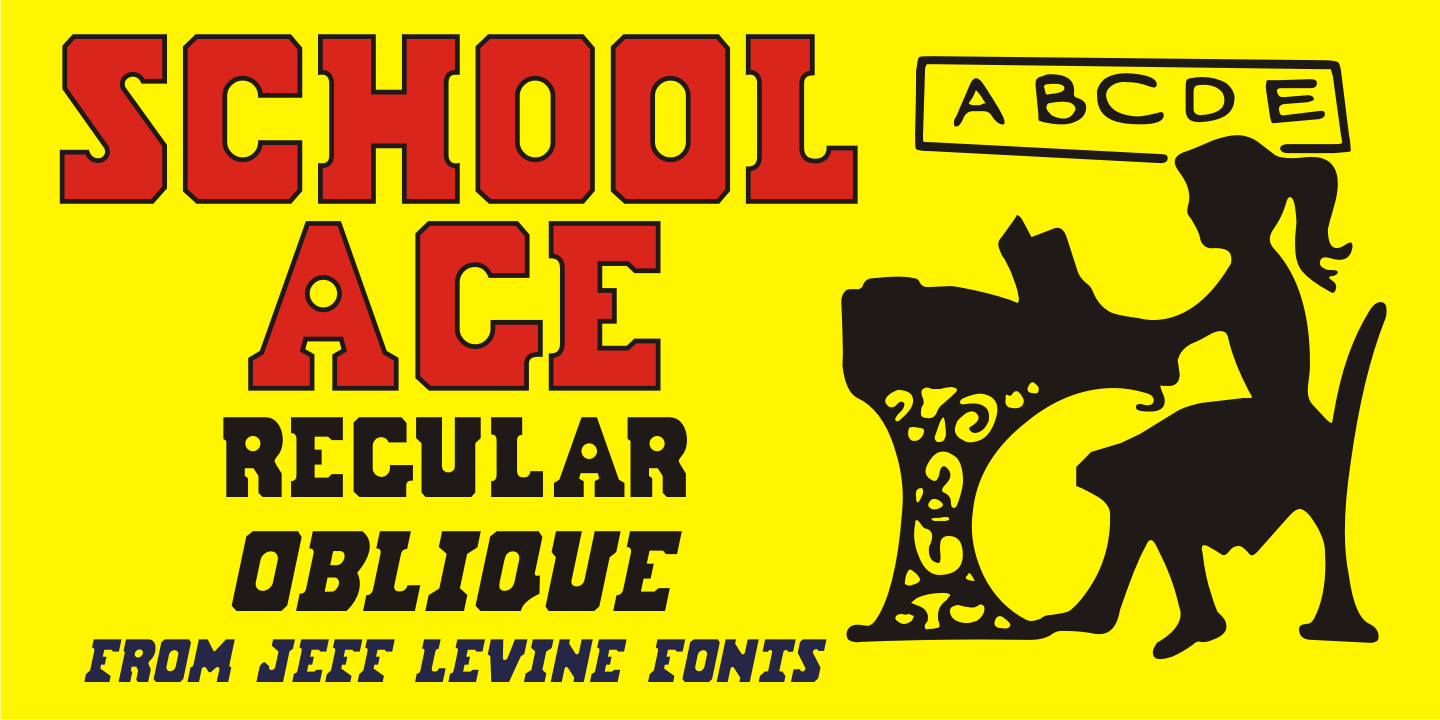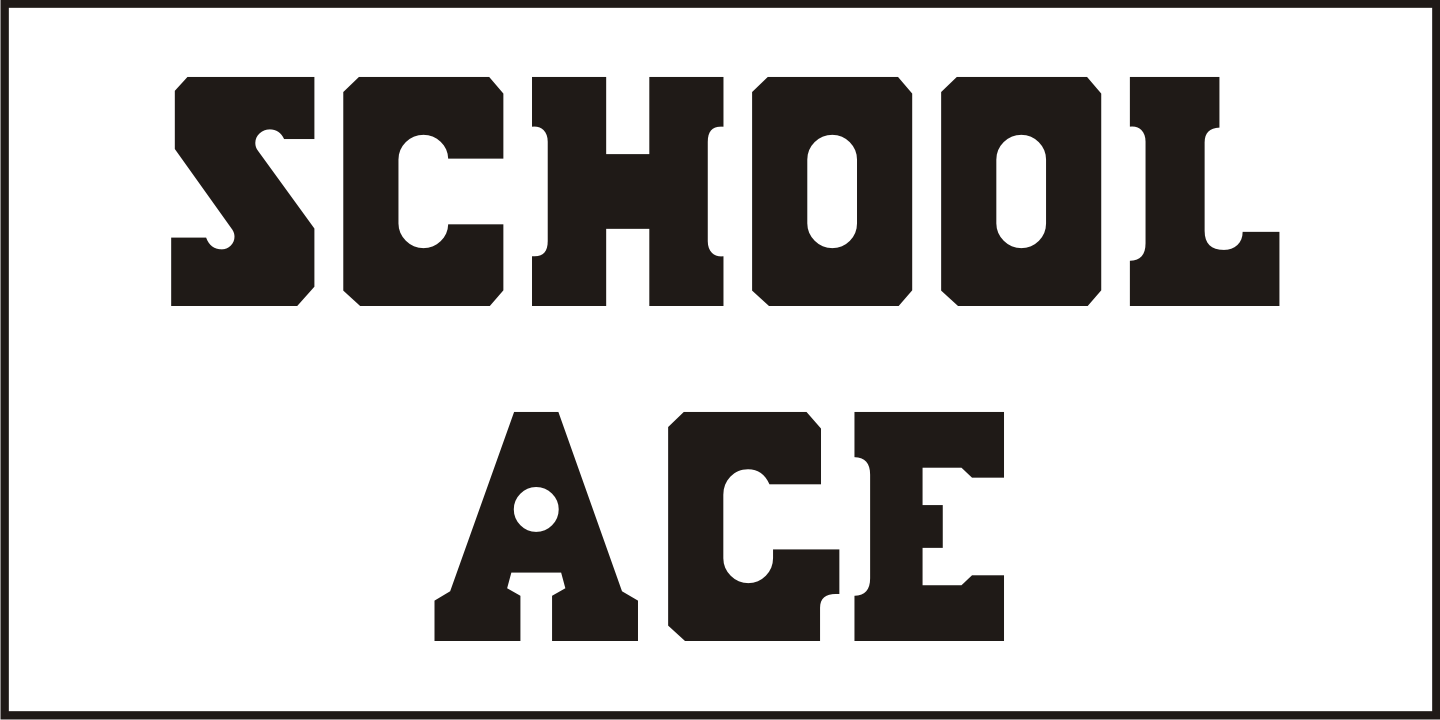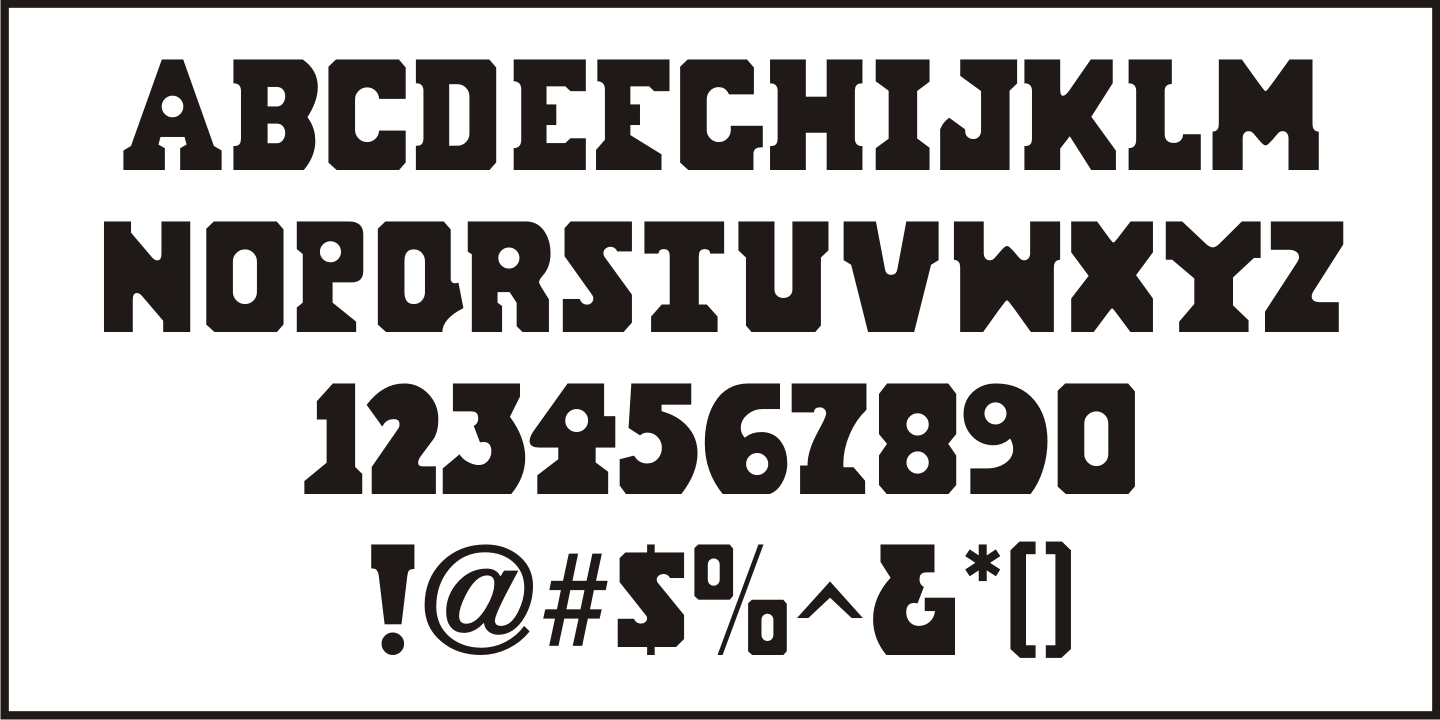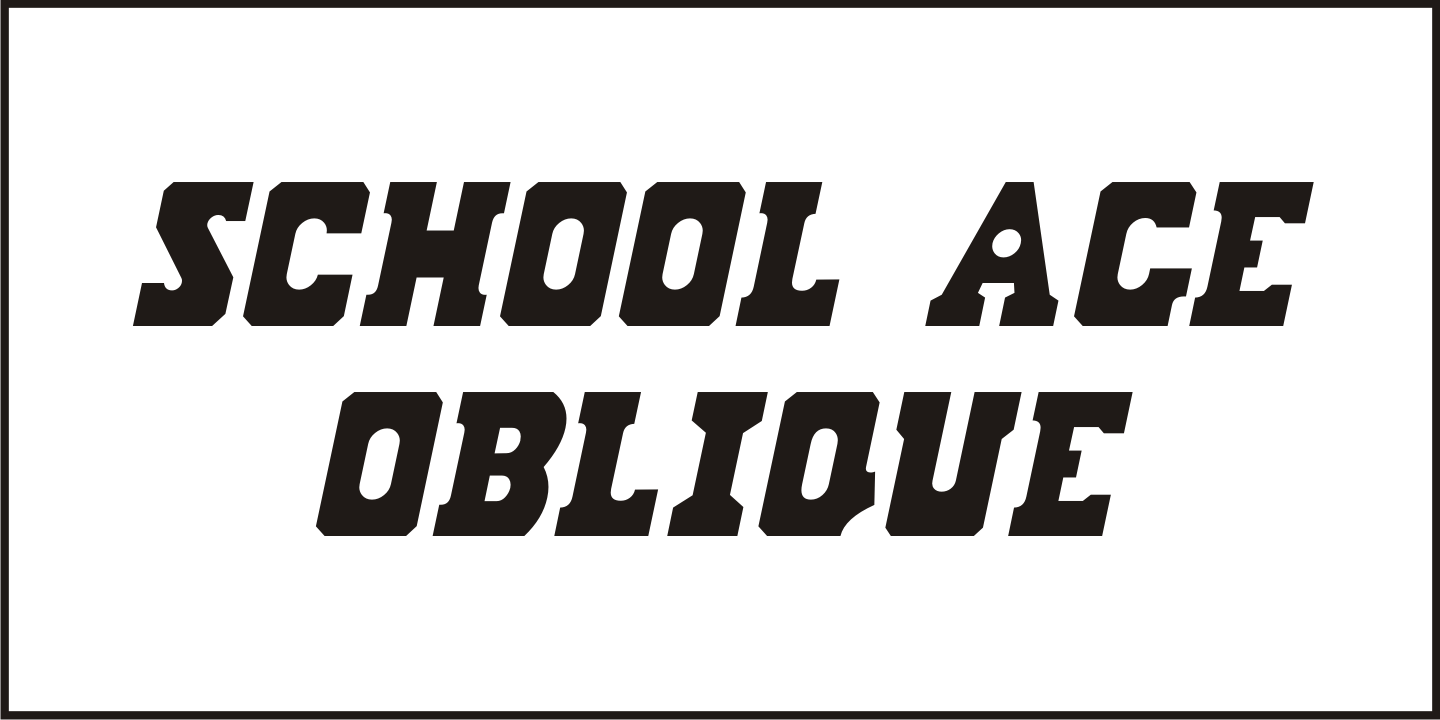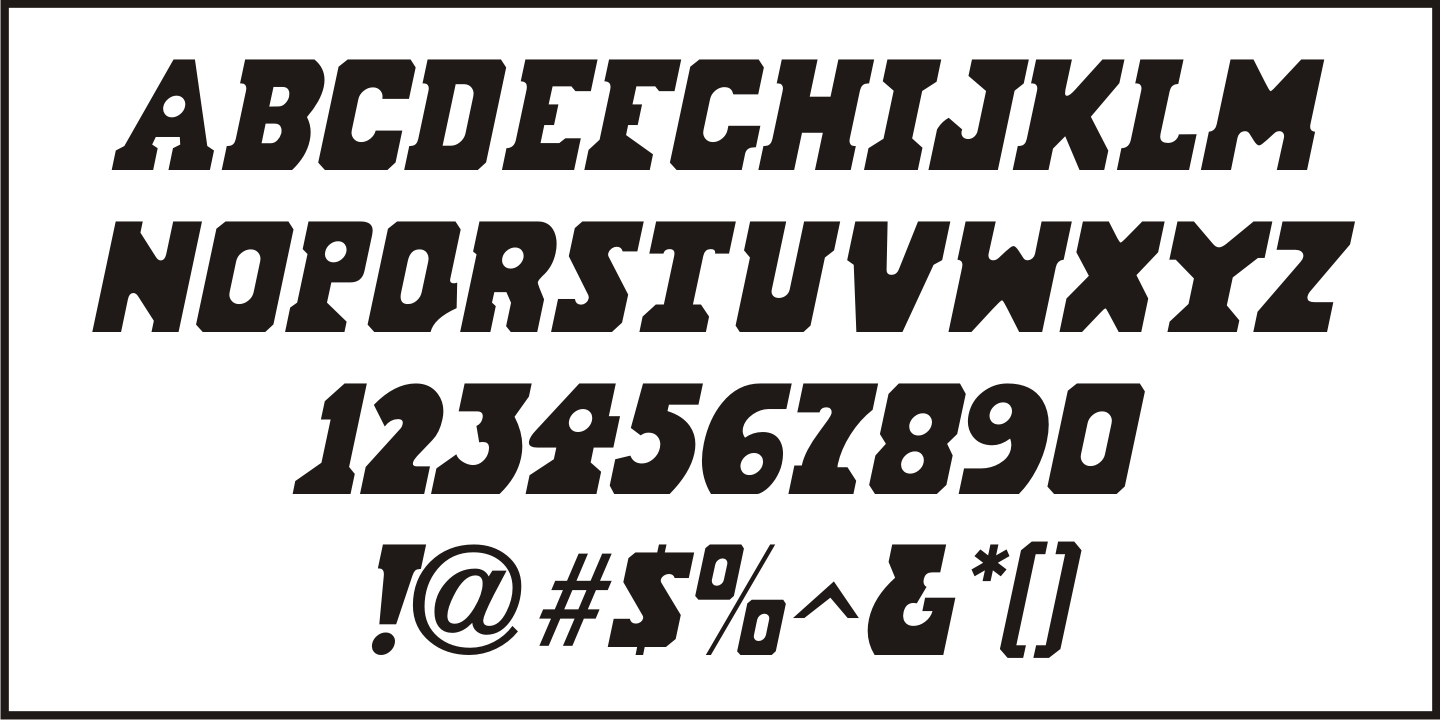
School Age
The 'Trixy Toy Educator' was a 1930s-era set of letters and numbers (along with a few animal shapes) for teaching children, and was manufactured by the Durrel Company of Gardner, Massachusetts.
Die cut from thick cardboard, the 40 piece set also included a rack to display the characters, presumably for little ones to practice the correct order of the alphabet and basic numerals or to spell simple words like 'dog' or 'cat'.
Whomever came up with the idea, they used the most rudimentary and unusual 'type design' shapes in the A-Z and 0-9, but they were just odd enough to inspire a digital type version of them.
School Age JNL is available in both regular and oblique versions.